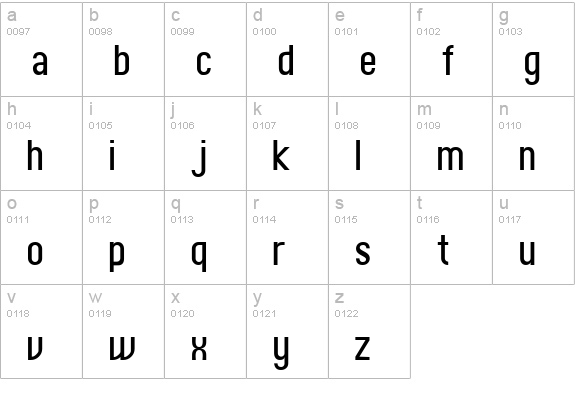
Chica Mono Font Details
Chica Mono font is a sleek and modern typeface that exudes elegance and sophistication. Its clean lines and geometric shapes make it perfect for a wide range of design projects, from branding to editorial. The monospaced characters give it a unique and distinct look that sets it apart from other fonts. What's even better is that Chica Mono font is completely free to download! You can get your hands on this stunning typeface at FontsMarket.com, where it is available for instant download. So go ahead and add a touch of style and sophistication to your designs with Chica Mono font today!